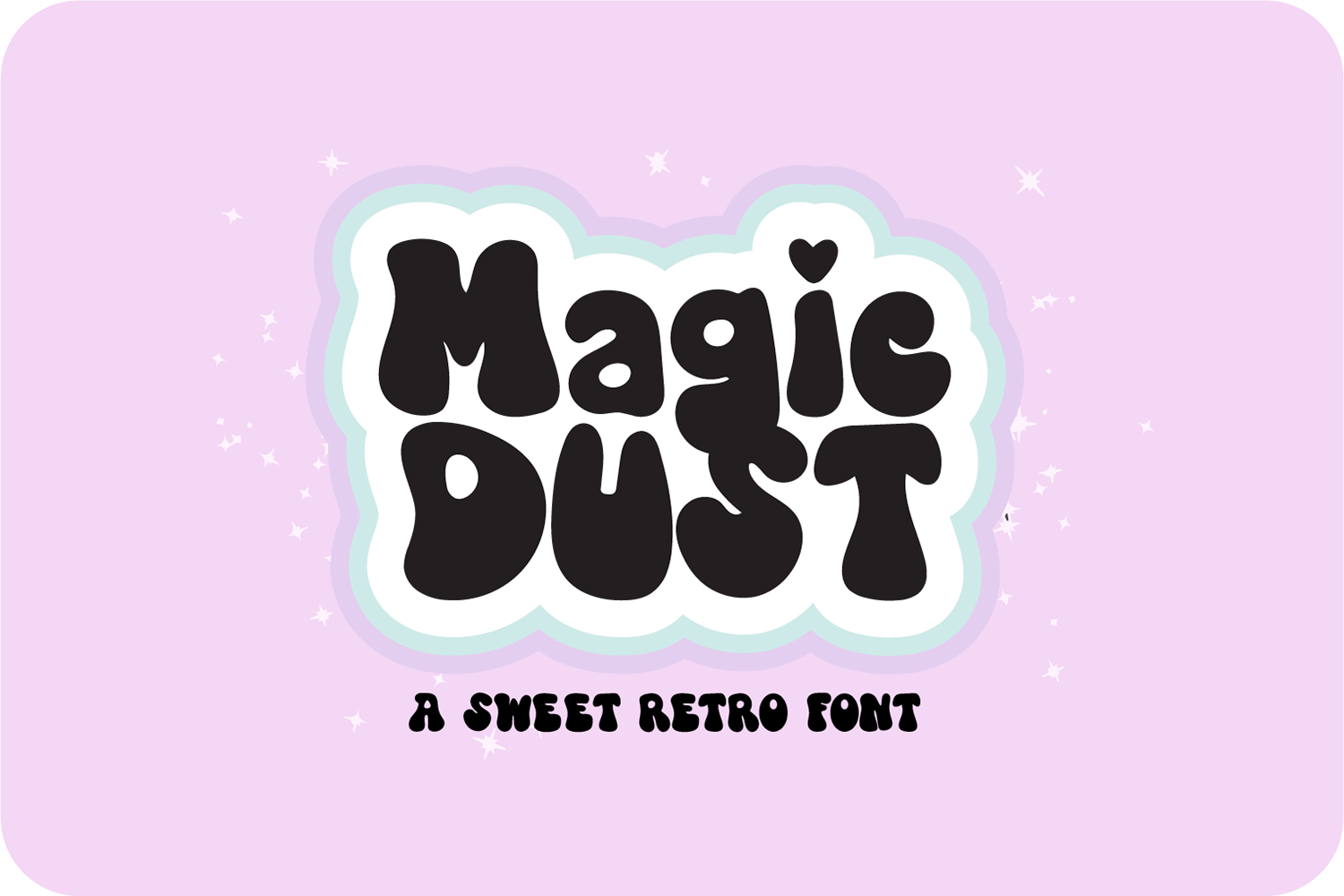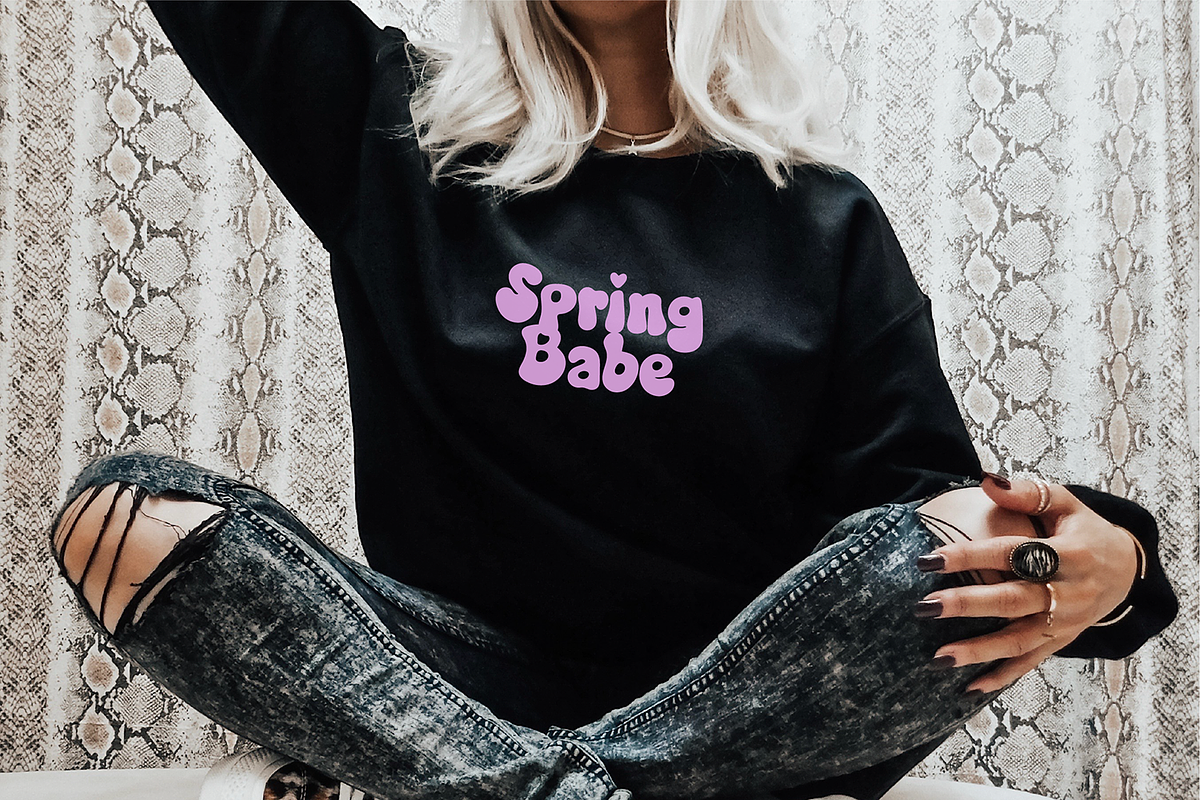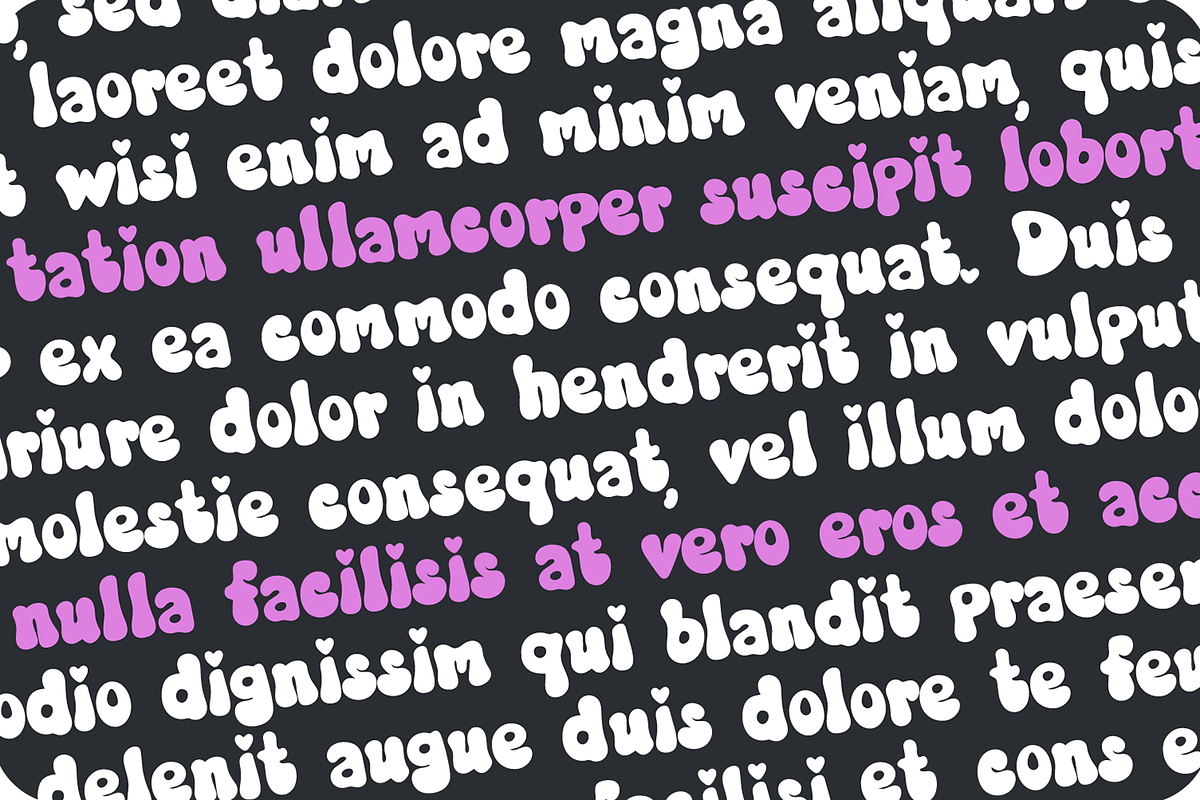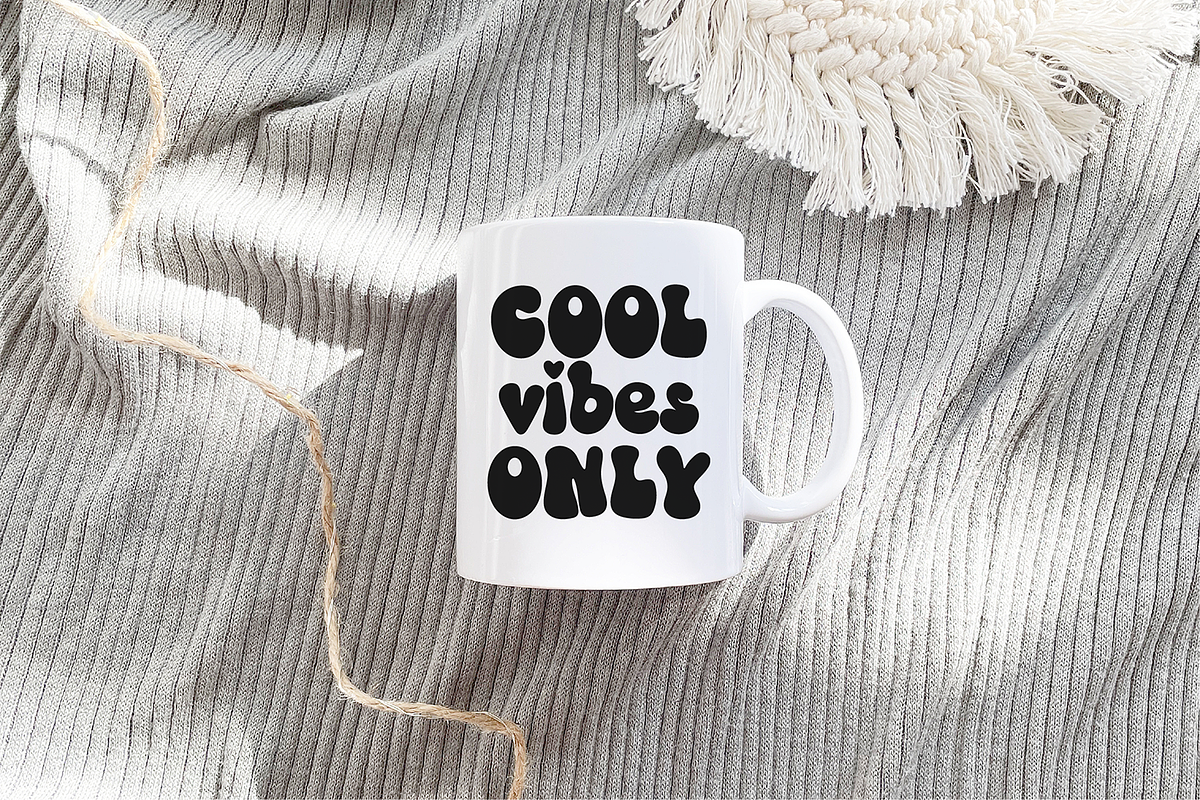
MAGIC DUST Bubble Retro Font
"Magic Dust" a bubbly retro font
This font is a trendy display font that is perfect for social media or crafty projects. Use it for branding, crafts for decor, t-shirts, and more! This font includes upper and lowercase glyphs, numbers, and punctuation marks.